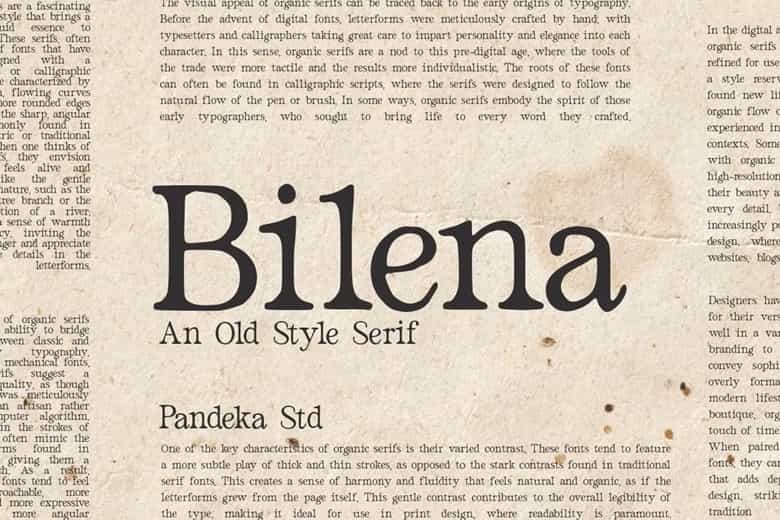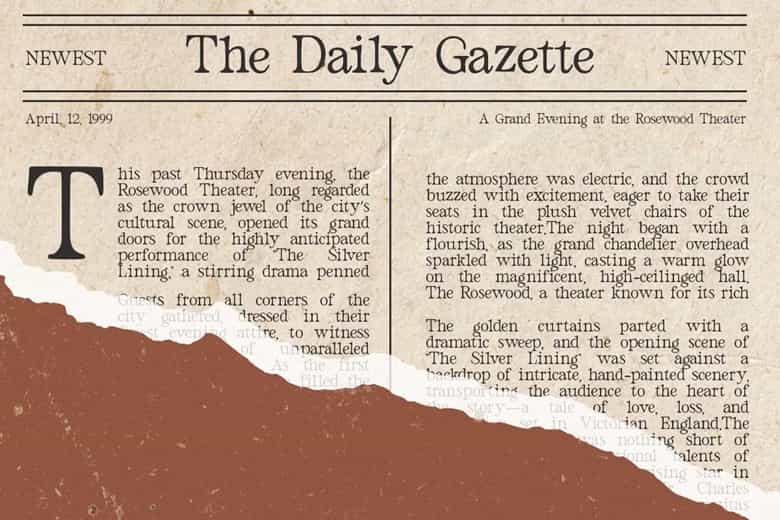
Introducing Bilena – An old style serif typeface with a handcrafted, timeless design. Best used for elegant and simple text, and arranged form unique heritage, Bilena brings beauty and refinement to books, magazines, and logos. Due to its organic nature and subjected to fully customizable, it is perfect for projects with some historical and artistic appeal.